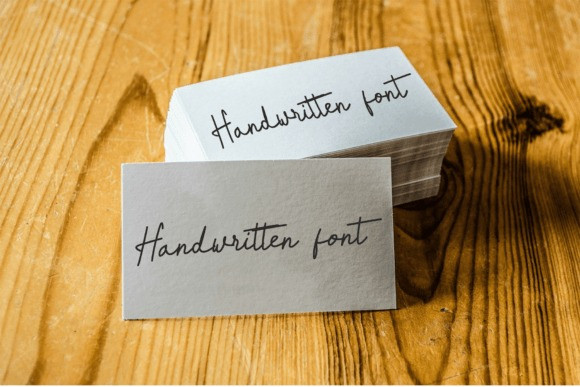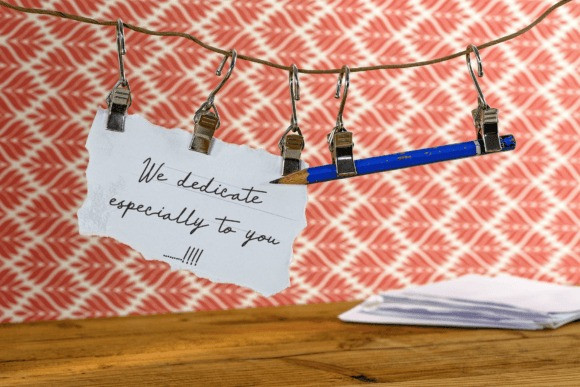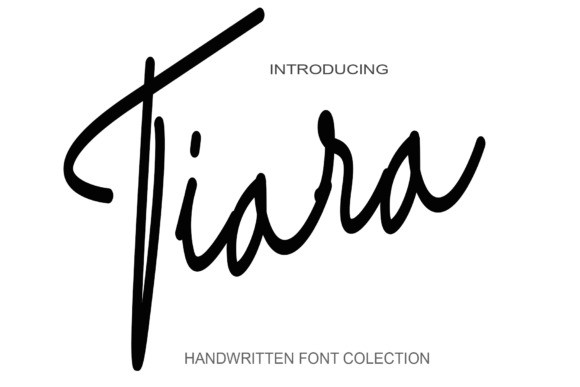
Tiara Handwritten Font
Tiara Handwritten Font is a simple and stylish handwritten font. It has a classy, elegant, and modern look that you can use for logos, branding, invitations, stationery, wedding designs, social media posts, and much more!